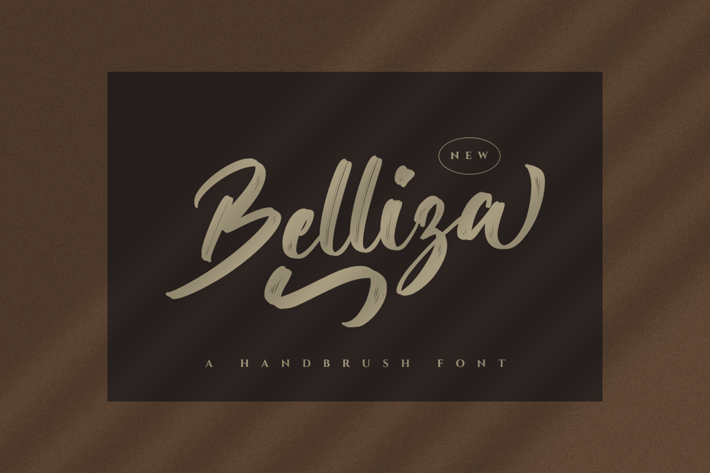
Belliza - Brush Script Font
The Belliza is a natural handwritten brush font. Itβs ideal for branding and decorating your projects, creating wedding invitations, book covers, marketing, and much more!